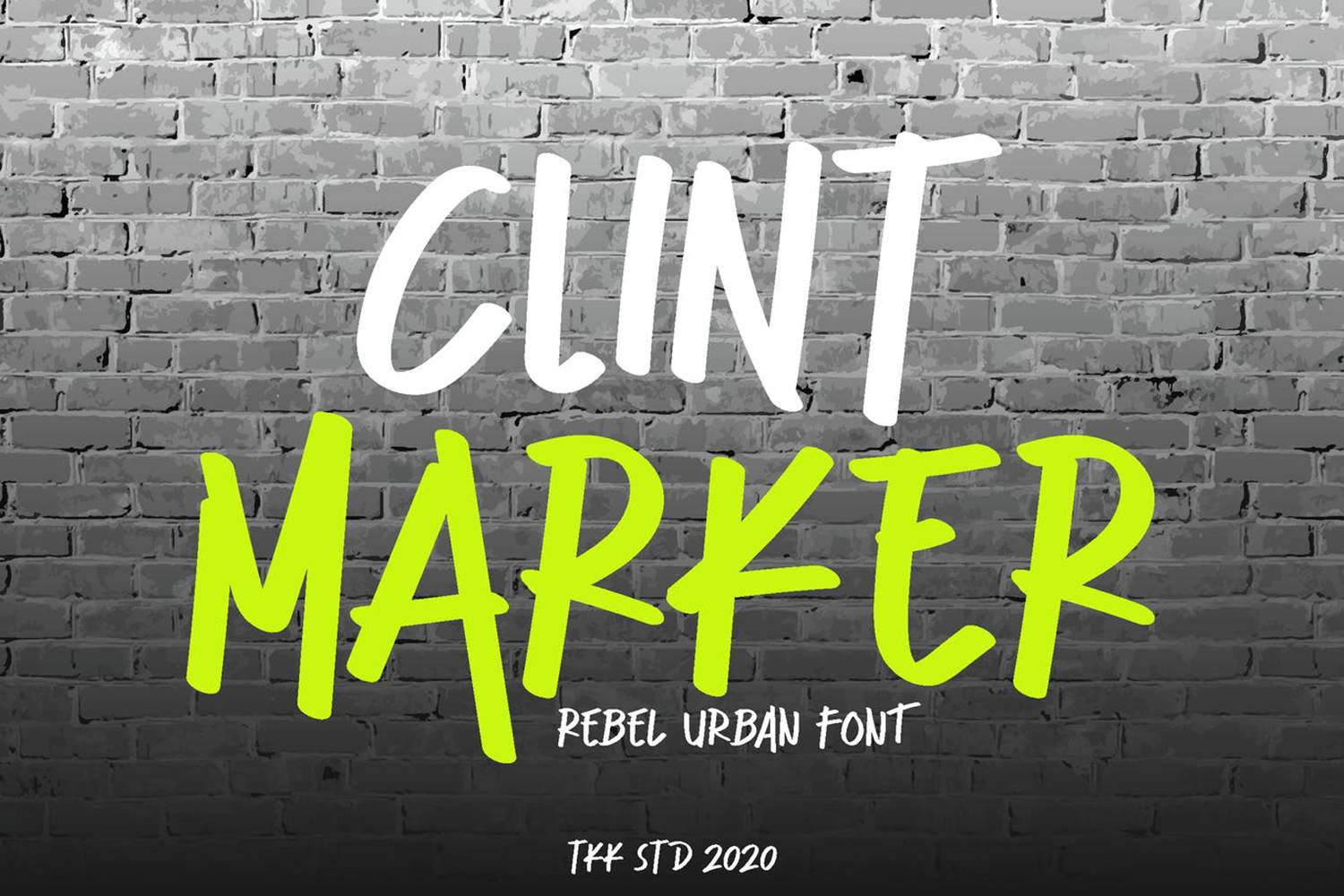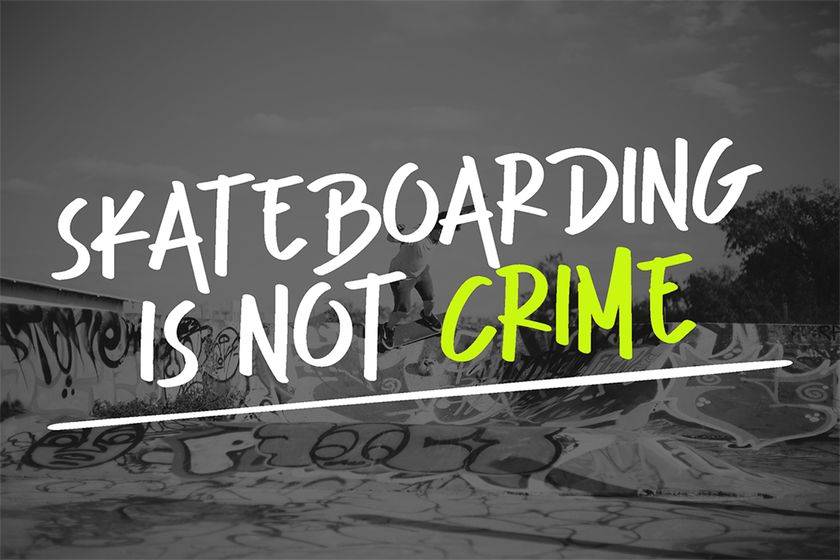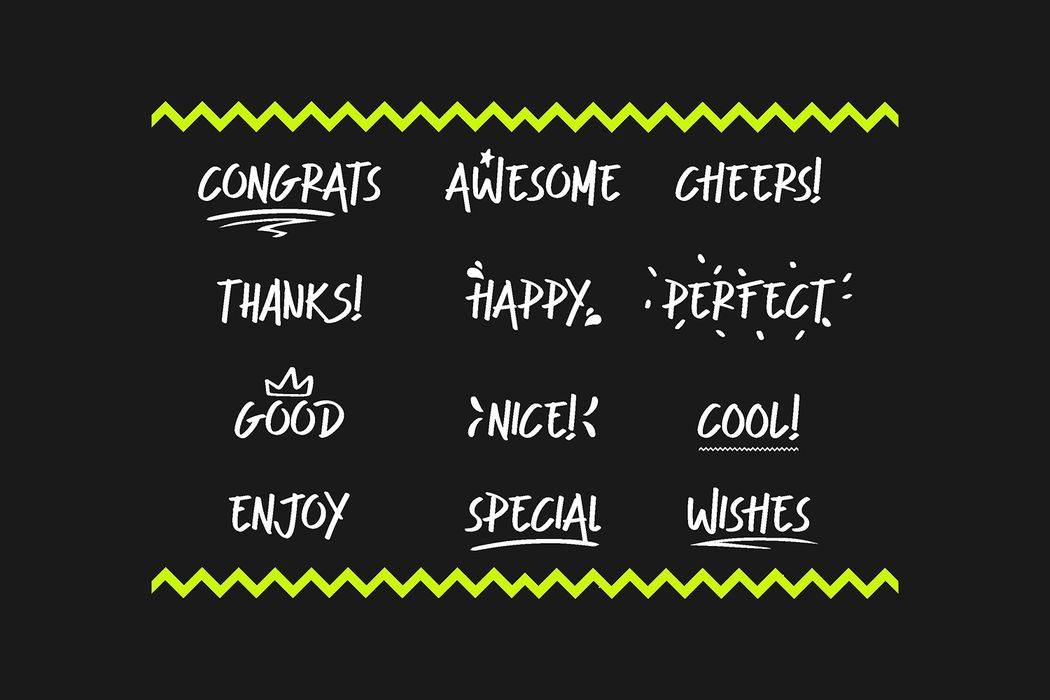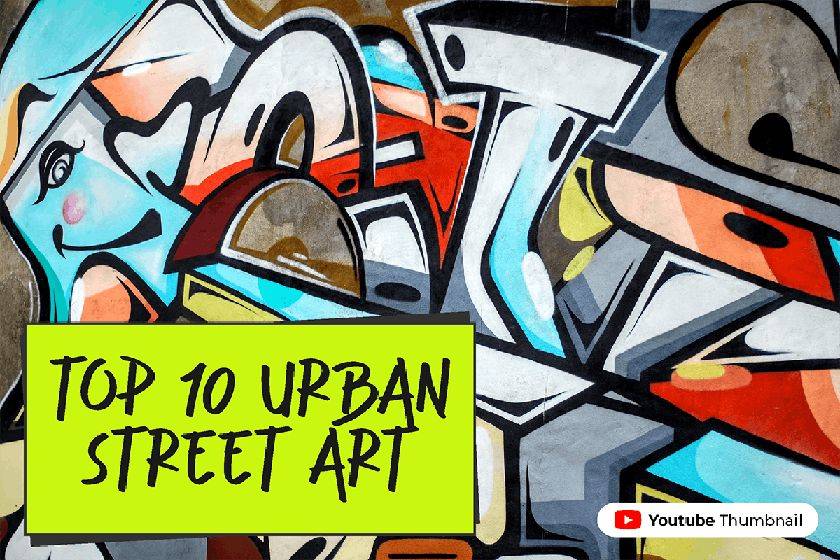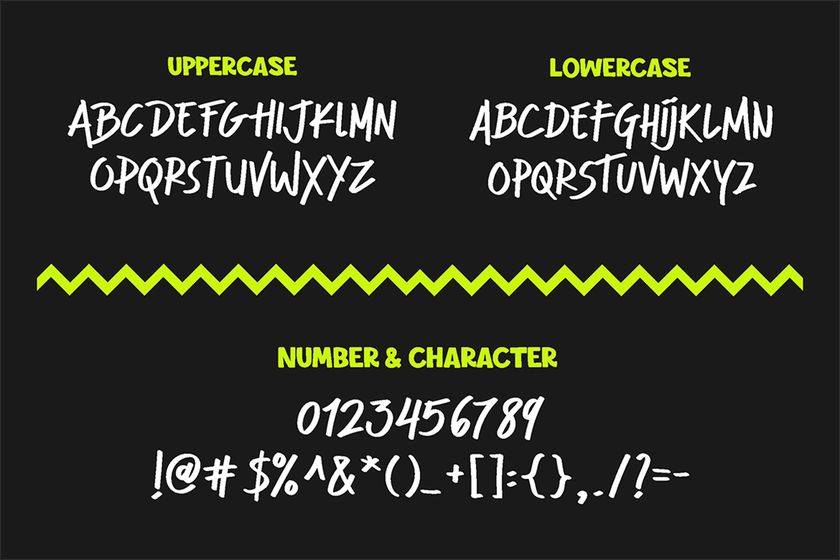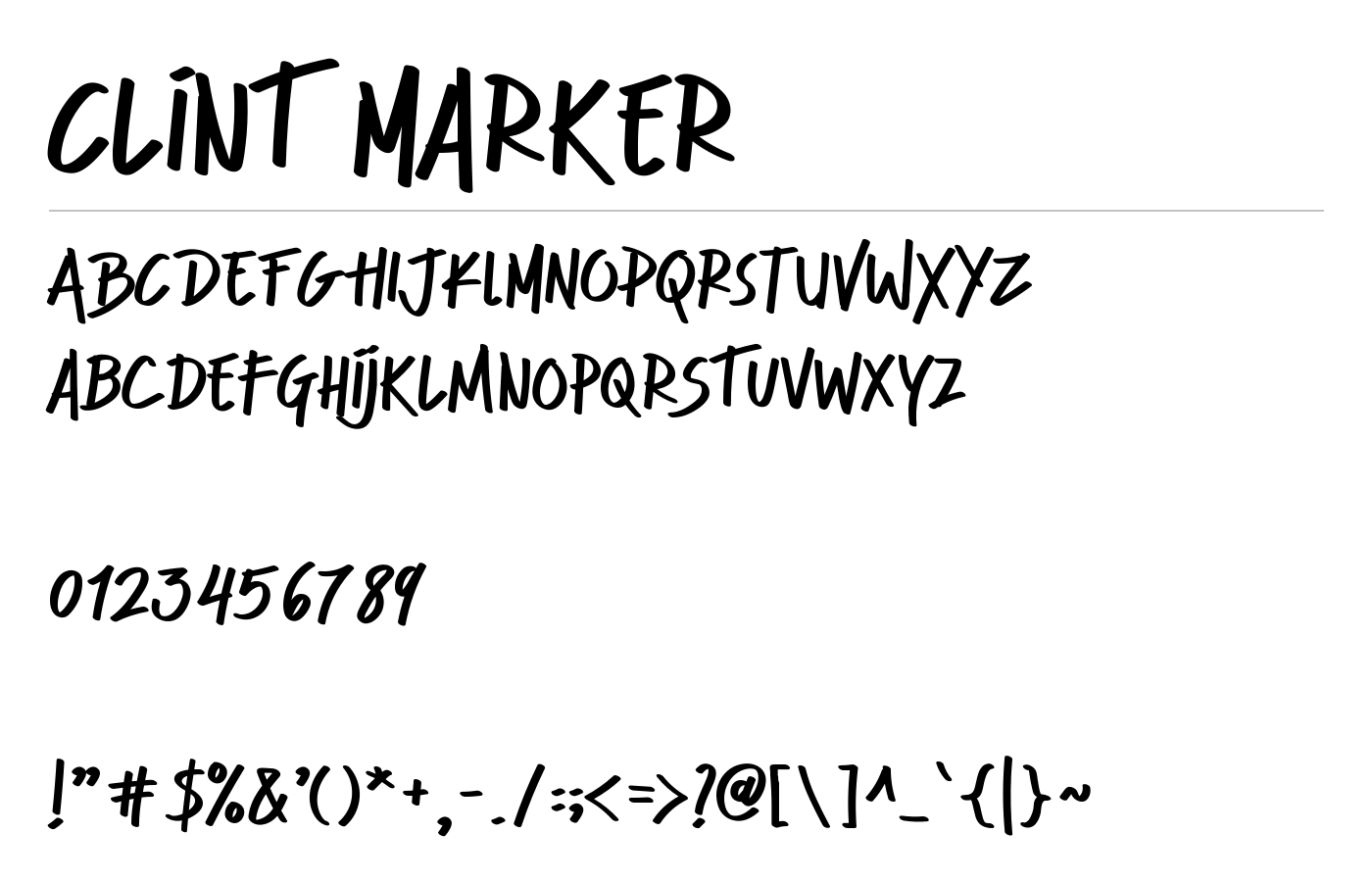
Clint Marker is a lively, handwritten sans serif font that mimics casual marker pen strokes with its energetic, slightly irregular letterforms. Its medium weight and moderately tall x-height make it highly readable while conveying a playful and informal personality, perfect for creative projects, branding, and expressive headlines. This font works well when you want to add a personal, approachable touch with a modern, artistic flair.
Clint Marker Font
About Clint Marker Font
| Font family | Clint Marker Font |
| Release date | 2020-10-08 |
| Designer | Sahirul |